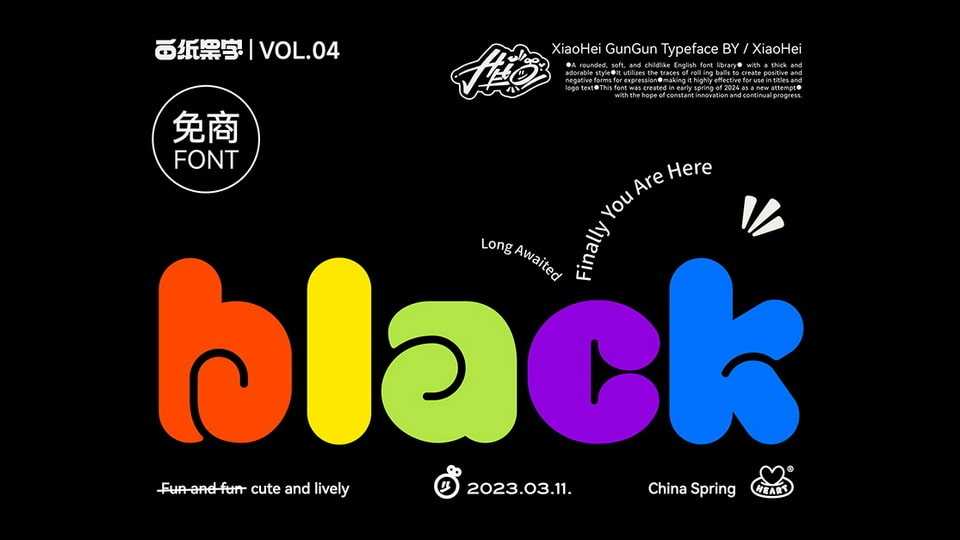
Download XiaoHeiGunGun font, a rounded, soft and childlike display typeface with a thick and adorable style. It adheres to the concept of freedom and utilizes the traces of of the circle to create positive and negative forms of expression
Designer: XiaoHei